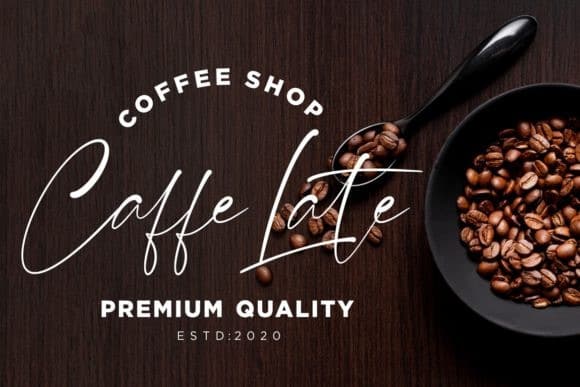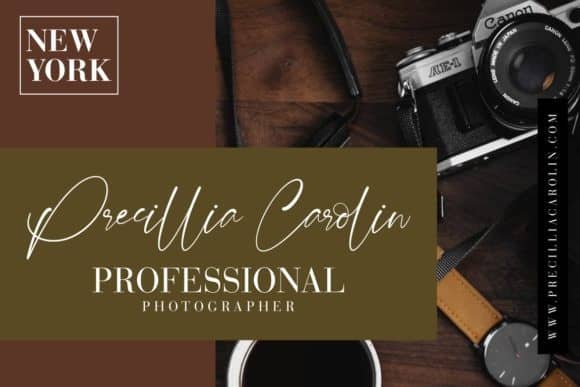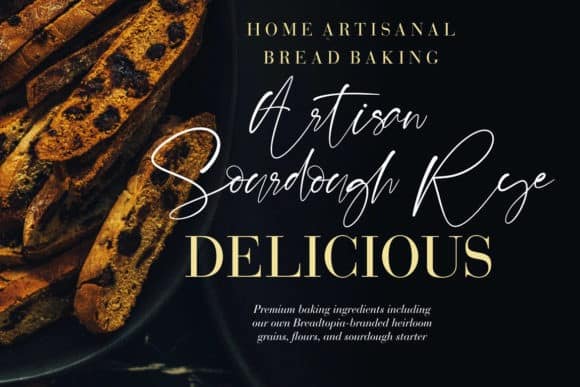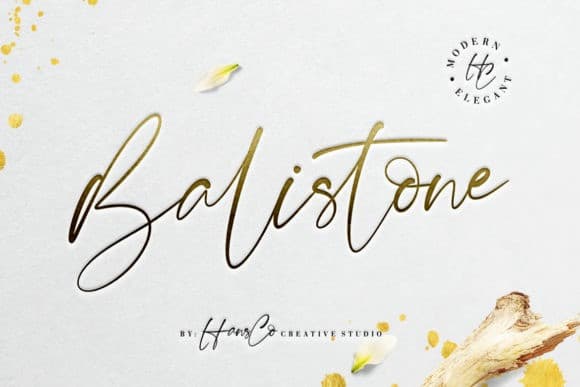
Balistone Handwritten Font
Balistone Handwritten Font is a delicate and elegant handwritten font. It is PUA encoded, which means that you can access all of the glyphs and swashes with ease! It’s designed and shared by HansCo. This typeface is a beautiful and modern script with a unique feel. Get inspired by its timeless charm! It features a varying baseline, smooth lines, gorgeous glyphs and stunning alternates. Fall in love with its unique style and use it to create spectacular designs!